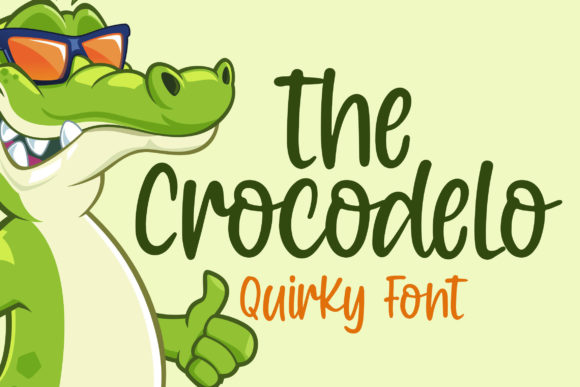
In the realm of typography, Crocodelo Font stands tall as a remarkable creation of Blankids Studio. It's a script font that's far from ordinary, emanating a captivating blend of whimsy and authenticity. Dive into the world of Crocodelo and let its playful spirit ignite your creativity like never before.
From the moment your eyes meet Crocodelo's captivating glyphs, you'll be mesmerized by its quirky yet authentic charm. With its distinctive letterforms, Crocodelo breathes life into any design concept, transforming it into a visual masterpiece. Whether you're crafting logos, invitations, posters, or social media graphics, Crocodelo is your trusty companion, ready to elevate your designs to new heights of brilliance.
At first glance, Crocodelo might seem like a playful font, perfect for adding a touch of whimsy to your creative projects. But look closer, and you'll discover its remarkable versatility. Crocodelo seamlessly adapts to a myriad of design styles, from elegant and sophisticated to bold and unconventional. It's a font that defies categorization, allowing you to express your individuality and make a statement with every design you create.
Unlike many script fonts that can be difficult to read, Crocodelo maintains exceptional legibility, ensuring that your message is communicated with clarity and impact. Its carefully crafted letterforms dance harmoniously on the page, creating a visual rhythm that draws the reader's eye and keeps them engaged.
Crocodelo is more than just a font; it's an experience. It's an invitation to embark on a creative journey where imagination reigns supreme. With Crocodelo as your guide, you'll discover new depths of creativity and produce designs that capture hearts and minds.
So, why settle for ordinary when you can have extraordinary? Embrace the magic of Crocodelo Font today and unlock a world of creative possibilities. Let your designs shine with a unique charm that's sure to leave a lasting impression.